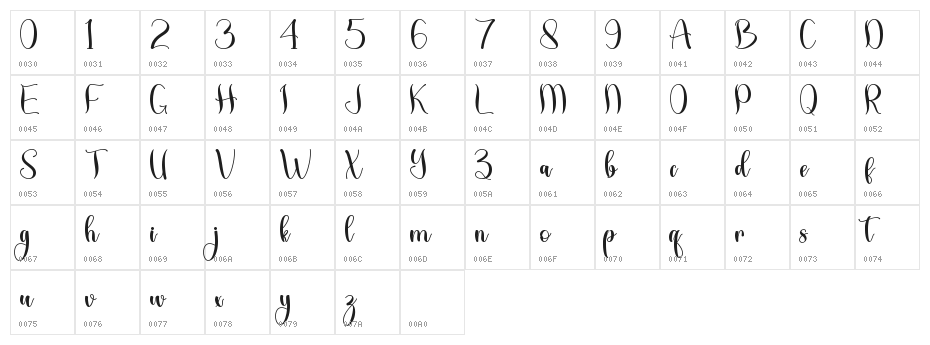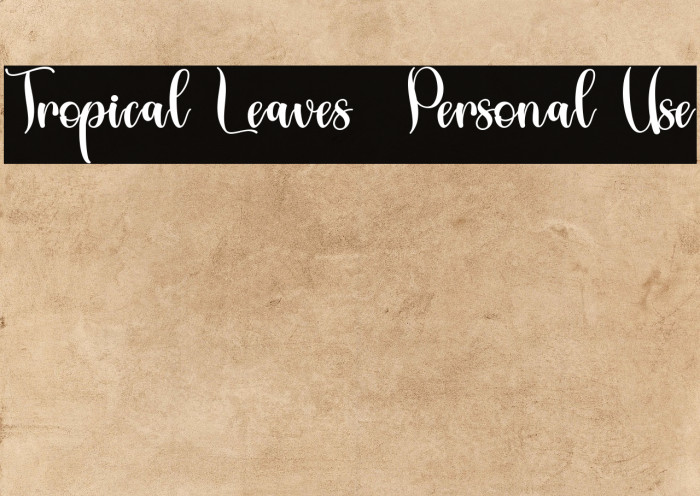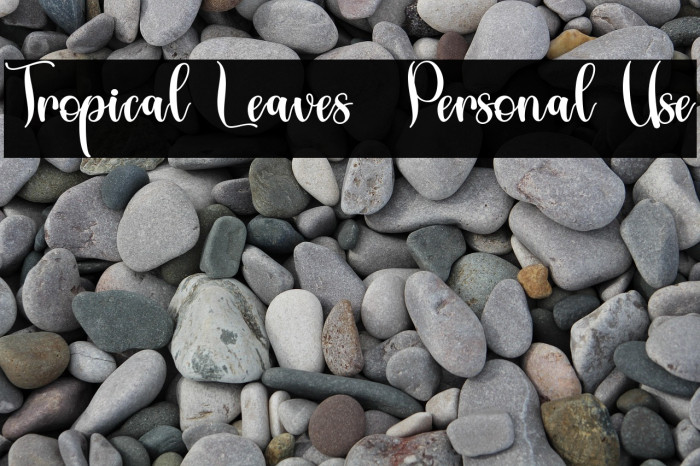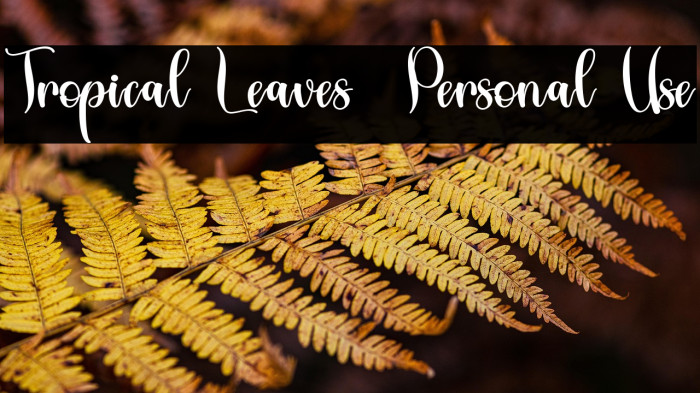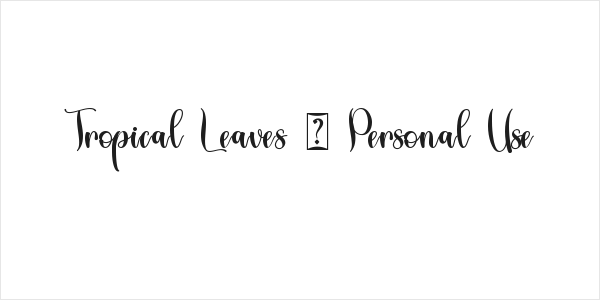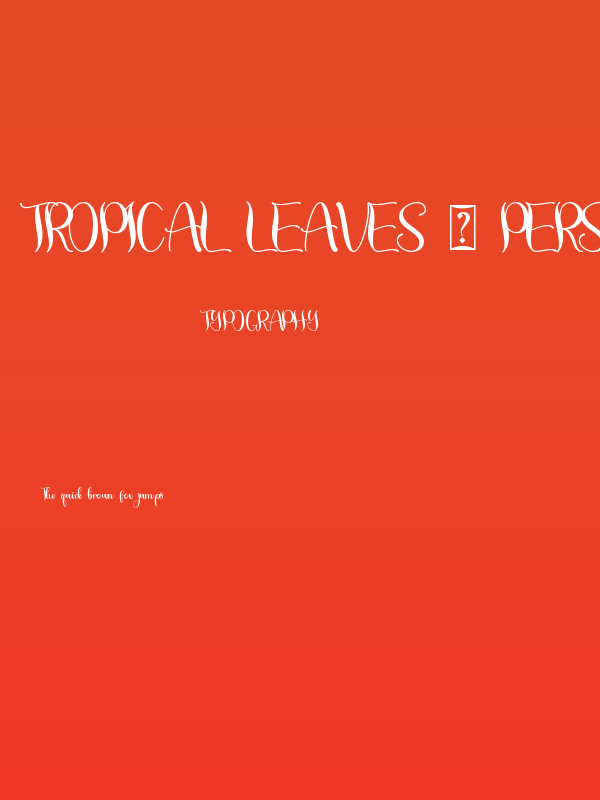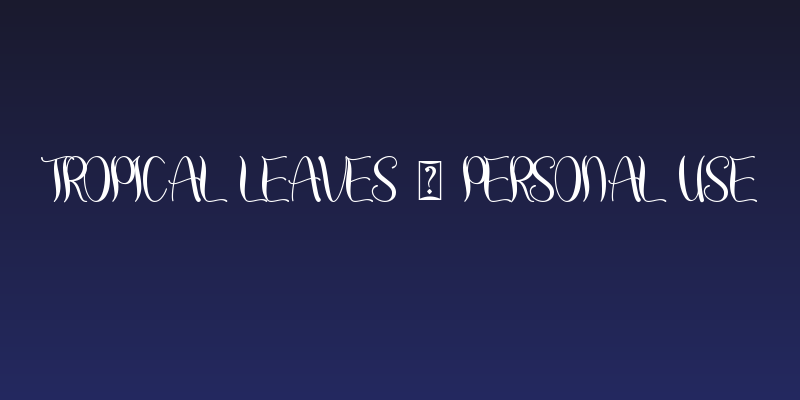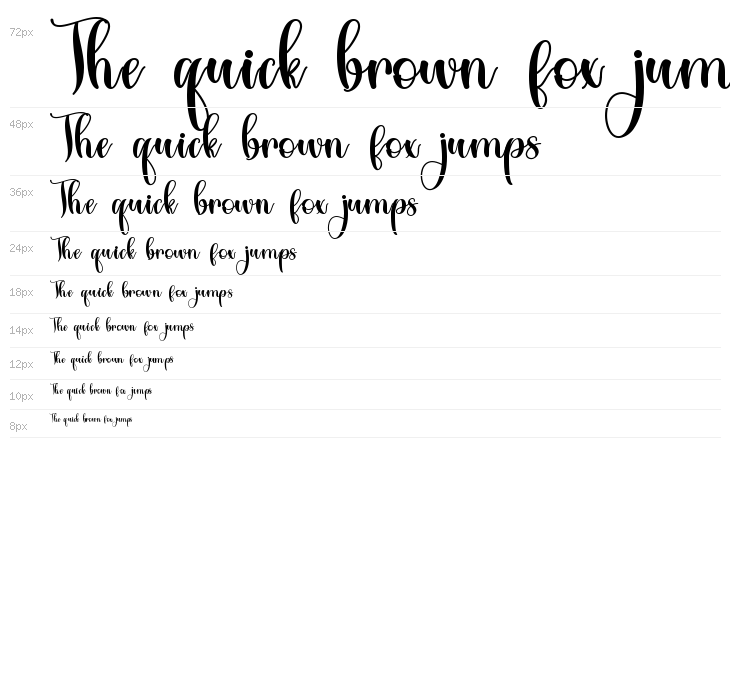
Tropical Leaves - Personal Use Font
Tropical Leaves - Personal Use Description
This font features a lively and flowing script style, characterized by its elegant, cursive letterforms. The uppercase letters are tall and slender, with graceful loops and swashes that add a touch of sophistication. The lowercase letters maintain a consistent flow, with rounded edges and smooth connections between characters. The numerals are distinct, maintaining the same fluid style, making them easily readable. Special characters are creatively integrated, enhancing the font's decorative appeal. This font exudes a sense of elegance and playfulness, making it suitable for various creative applications.